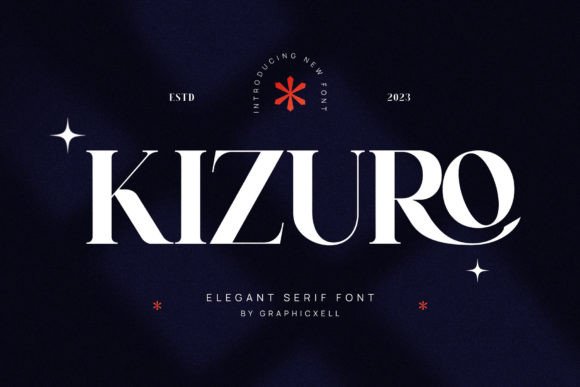
Introducing Kizuro Font, an exquisite serif font family crafted with precision and elegance. This font transcends the ordinary, offering a captivating fusion of classic serif characteristics with a uniquely modern flair. Kizuro's carefully designed curves and delicate details elevate your creations, making them radiate sophistication and charm.
Immerse yourself in the world of Kizuro, where each letter dances with grace and precision. Its finely tuned proportions ensure effortless readability, while its subtle flourishes add a touch of visual intrigue. Whether you're crafting logos, branding projects, wedding invitations, or social media posts, Kizuro effortlessly elevates your designs, transforming them into visually stunning masterpieces.
Step into a realm of limitless creativity with Kizuro. Its versatility knows no bounds, adapting seamlessly to a wide spectrum of projects. Let your imagination soar as you explore the endless possibilities, from elegant product packaging and labels to captivating photography and watermarks. Kizuro gracefully complements any project, adding a touch of sophistication and timeless appeal.
Embrace the allure of Kizuro, a font that captures the essence of timeless elegance. Its meticulously crafted characters exude a sense of luxury and refinement, effortlessly enhancing the impact of your designs. Kizuro is not merely a font; it's an artistic expression that breathes life into your creations, leaving a lasting impression on your audience.
Unlock the gateway to creative brilliance with Kizuro Font. Its versatility empowers you to craft designs that resonate with your audience, leaving them captivated and inspired. Join the ranks of discerning designers who recognize the transformative power of Kizuro, and elevate your creations to new heights of visual splendor.